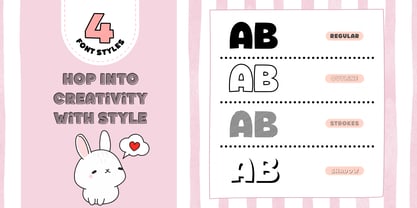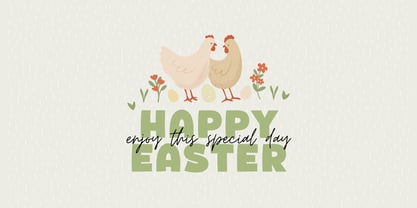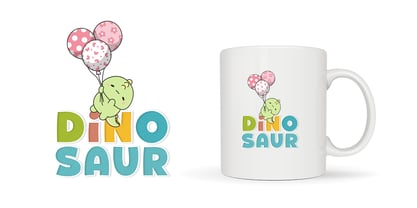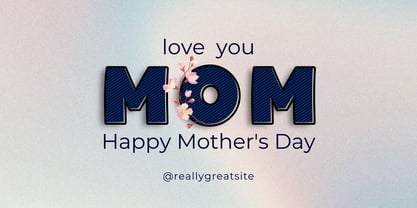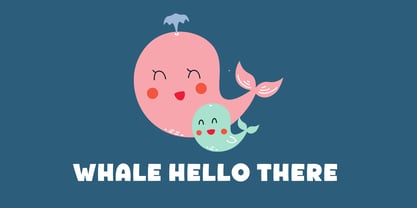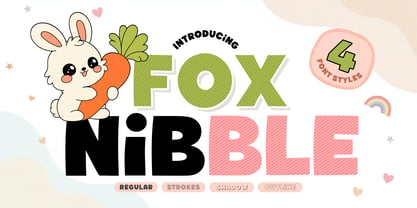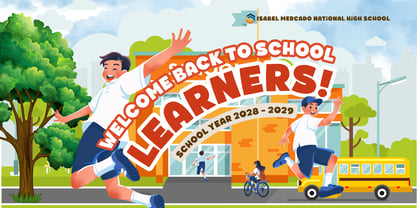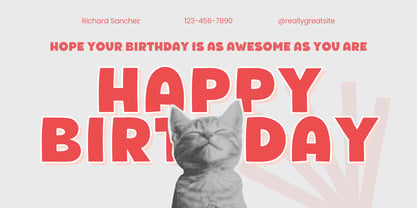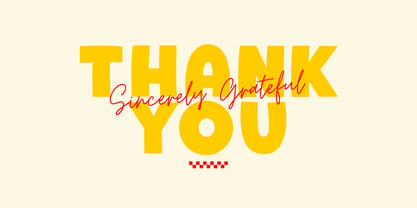
Fox Nibble
by Fox7
The Fox Nibble Font Family was designed by Rattana Rattanawan and published by Fox7. Fox Nibble contains 4 styles and family package options. More about this family
🌟 Fox Nibble - A Playful & Chunky Display Font 🌟 Hop into a world of creativity with Fox Nibble! 🐰🥕 This adorable, chunky display font is designed to bring a sense of joy and warmth to your projects. With its bold, rounded shapes and 4 distinct styles, it’s the perfect choice for creators who want to add a "cutesy" yet professional touch to their work. Whether you're designing for kids, branding a bakery, or creating viral social media content, Fox Nibble provides the versatility you need to make your titles pop! Perfect For: ⭐️ Children’s Branding: Book covers, toy packaging, and nursery wall art. ⭐️ Social Media: Eye-catching YouTube thumbnails, Instagram quotes, and TikTok captions. ⭐️ Merchandise: T-shirts, stickers, mugs, and greeting cards. ⭐️ Digital Crafting: Cricut projects, and digital planners. ⭐️ Event Stationery: Birthday invitations, school posters, and party banners. Bring a little nibble of fun to your design toolkit today! 💖
Designers: Rattana Rattanawan
Current Foundry: Fox7